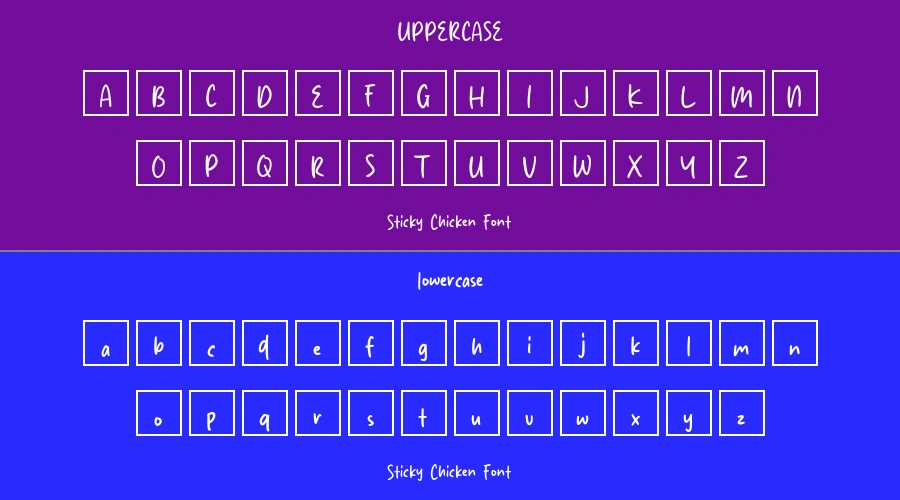
About Sticky Chicken Font
Sticky Chicken Font embodies typographic excellence through its masterful combination of perfect spacing and emotional resonance. Created for financial statements, this typeface delivers exceptional durability and refinement across all applications. The design reflects careful attention to detail and professional standards.
Advanced capabilities include distinctive rounded corners and versatile proportional figures, giving designers creative control. When used in sidebars, Sticky Chicken Font exhibits remarkable table alignment. The harmonious balance between counter shape and educational suitability sets this typeface apart.